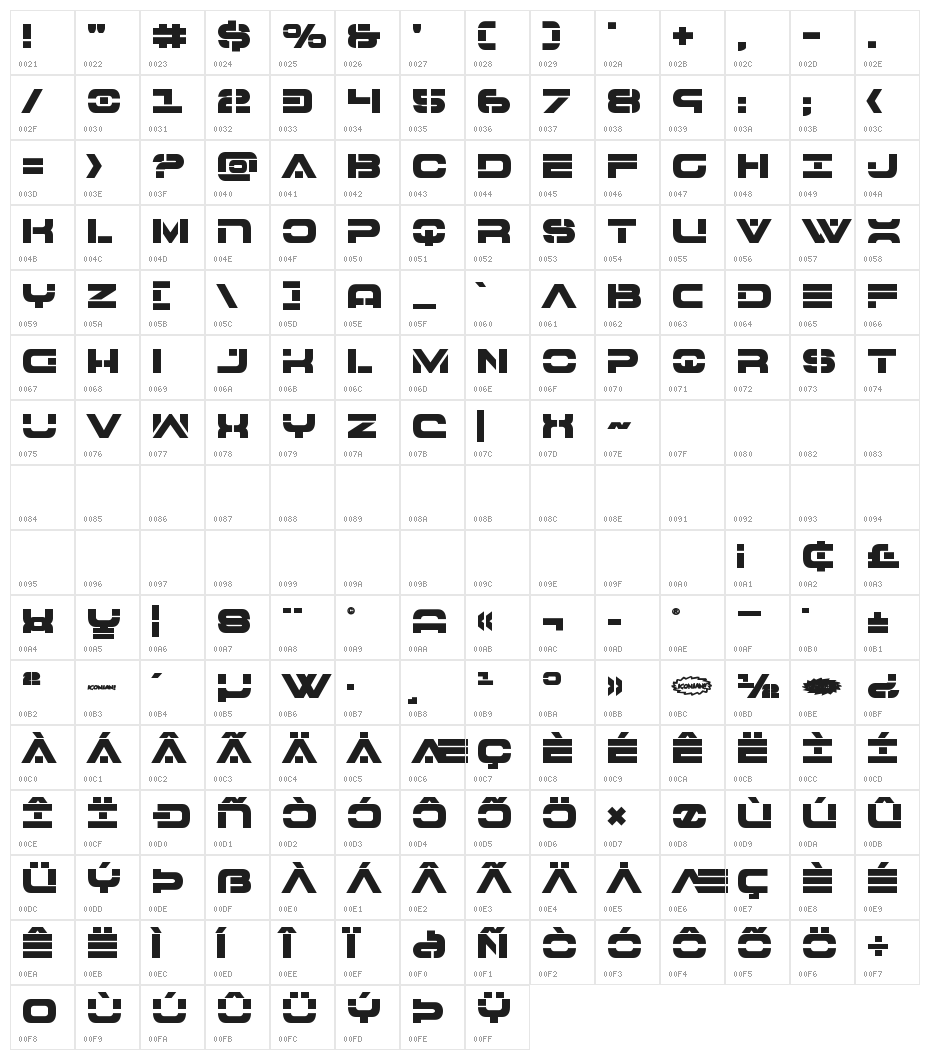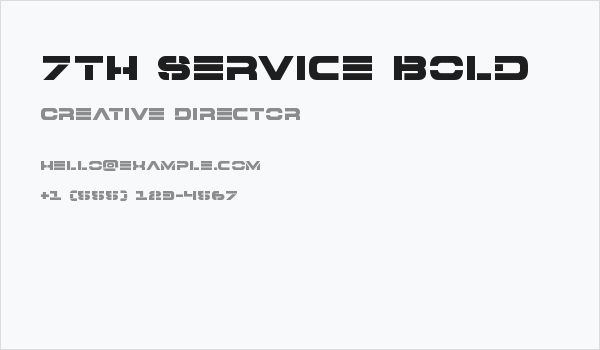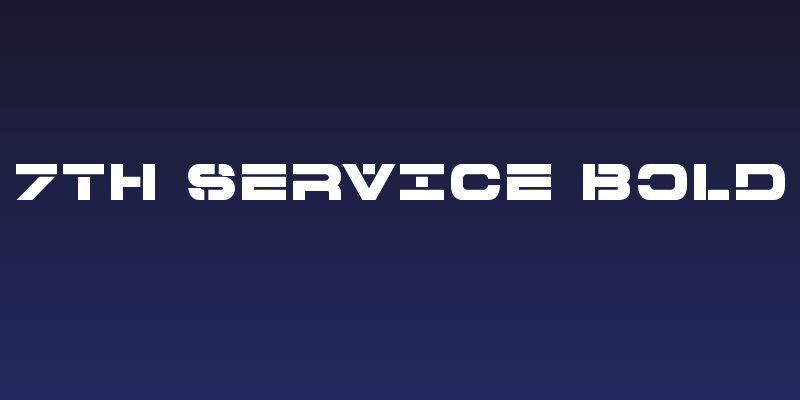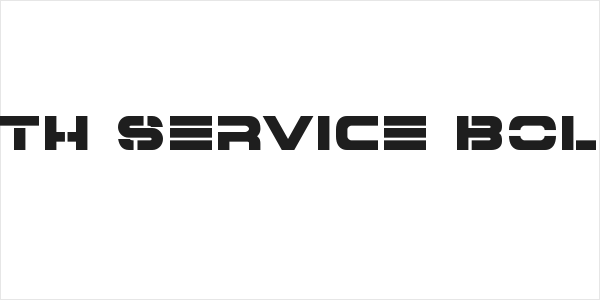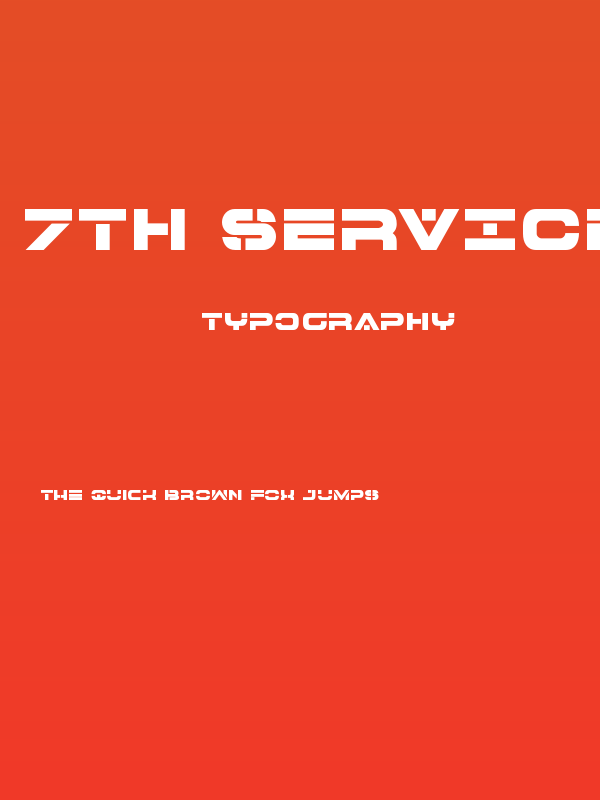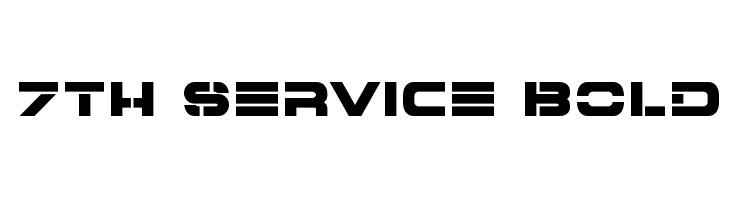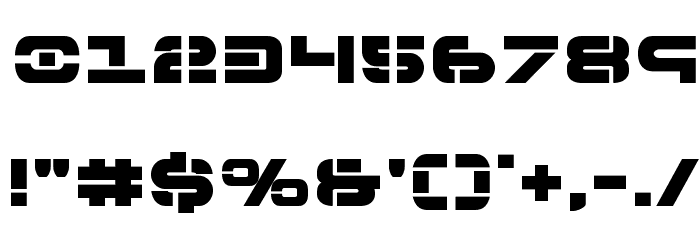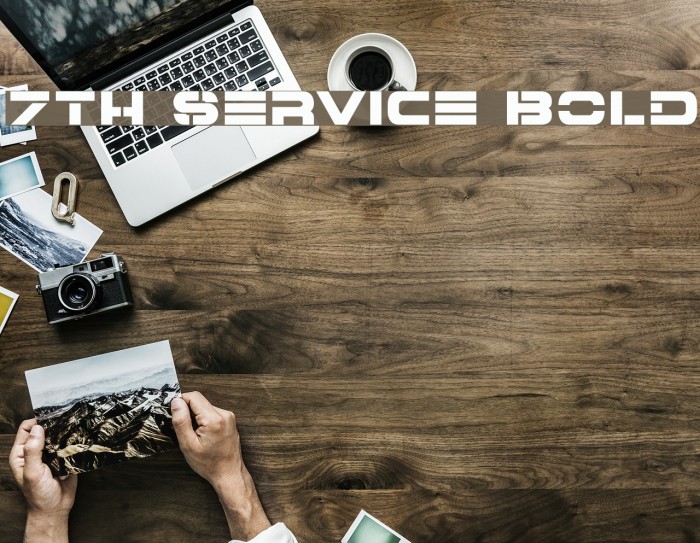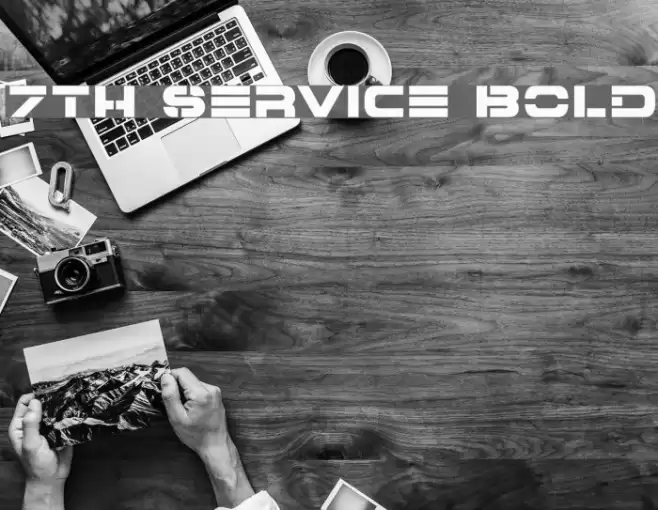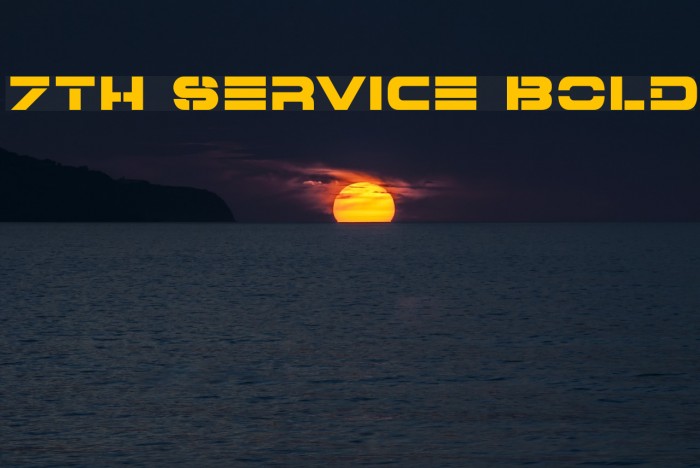
7th Service Bold Font
7th Service Bold Description
This font features a bold, geometric design with a futuristic and industrial feel. The characters are constructed with thick, block-like strokes and incorporate unique cut-out sections, giving them a stencil-like appearance. The uppercase letters are particularly striking, with angular edges and a strong presence. The numerals and special characters maintain this bold aesthetic, ensuring consistency throughout the typeface. This font is highly legible and commands attention, making it ideal for impactful designs.
| Proposed Projects | Ideal for branding, posters, and signage where a strong, modern impact is desired. |